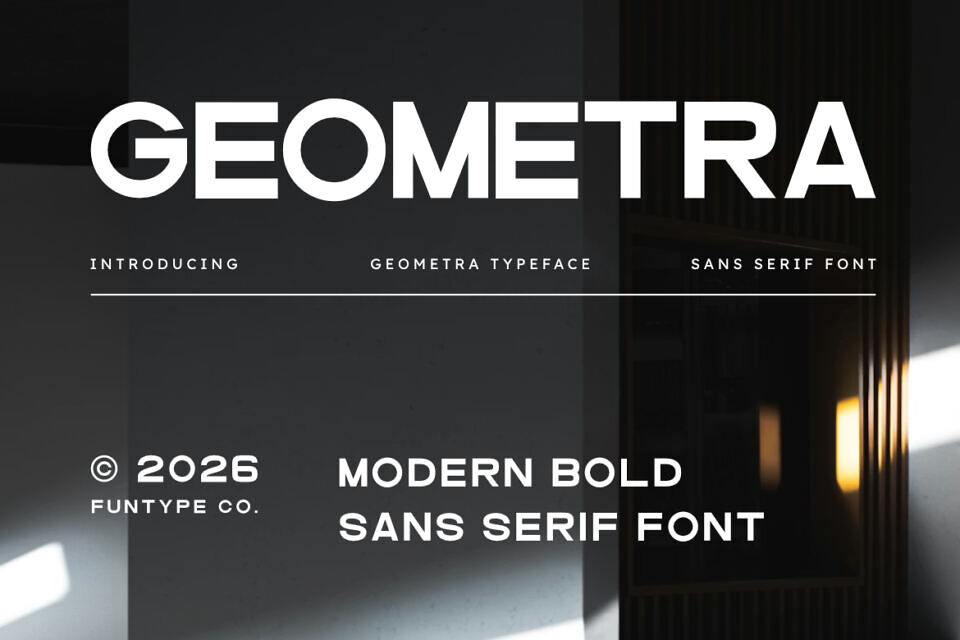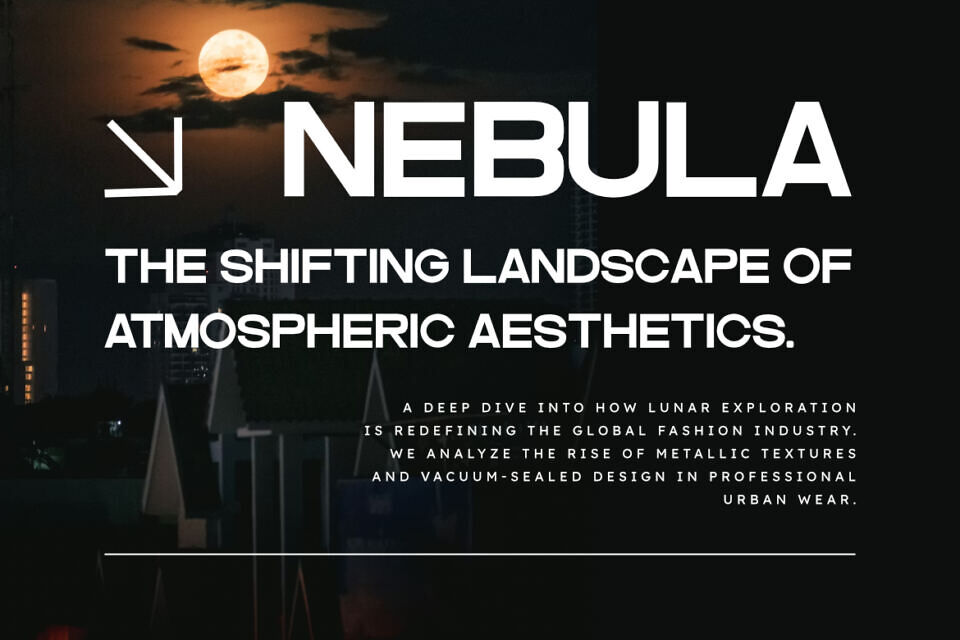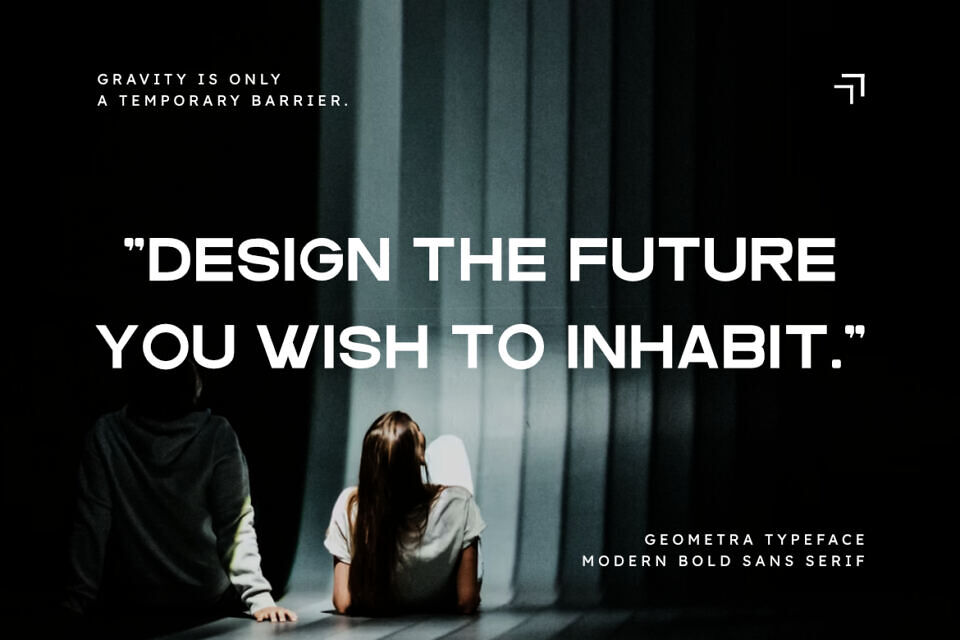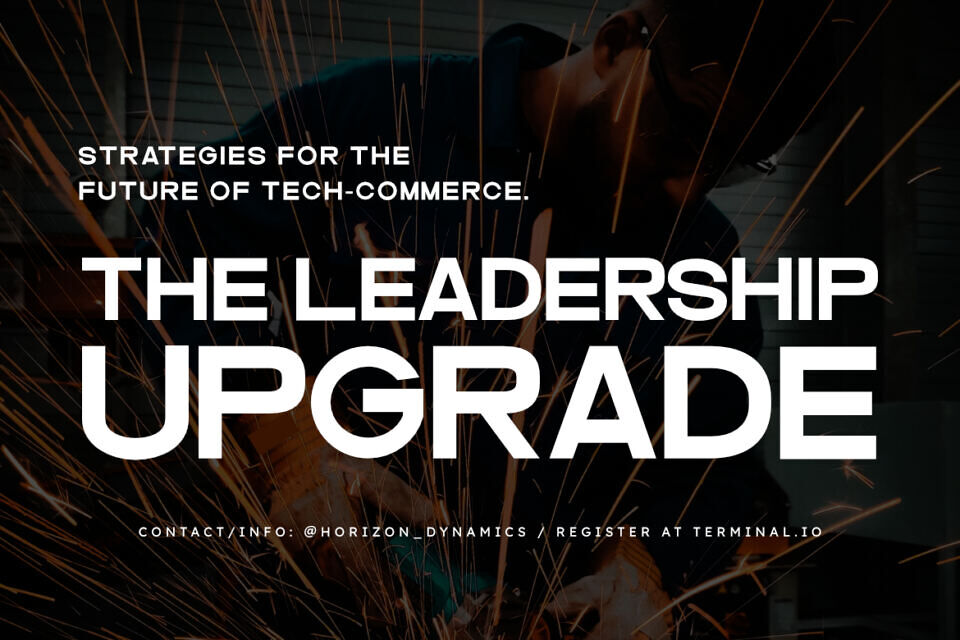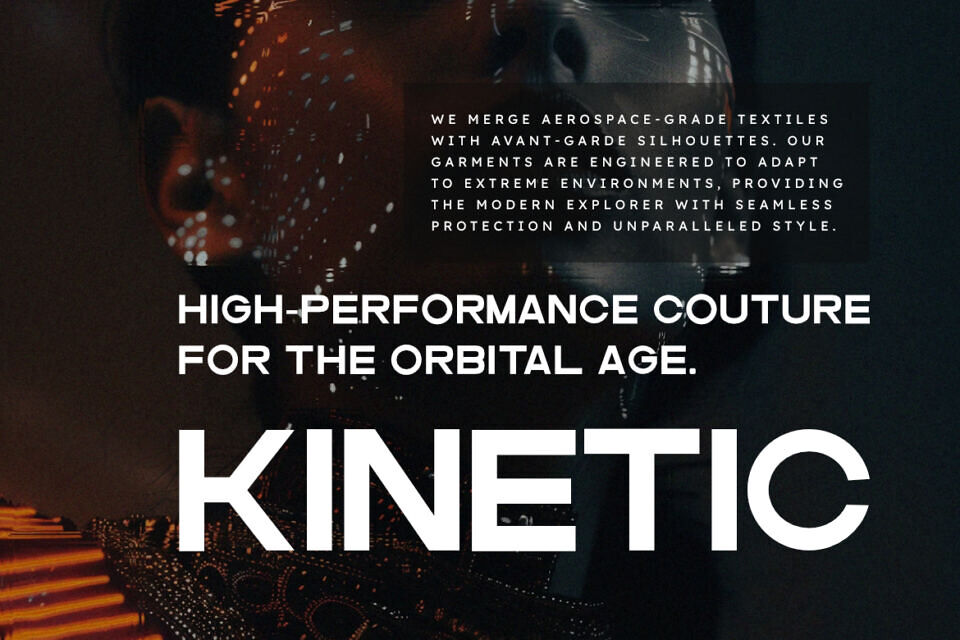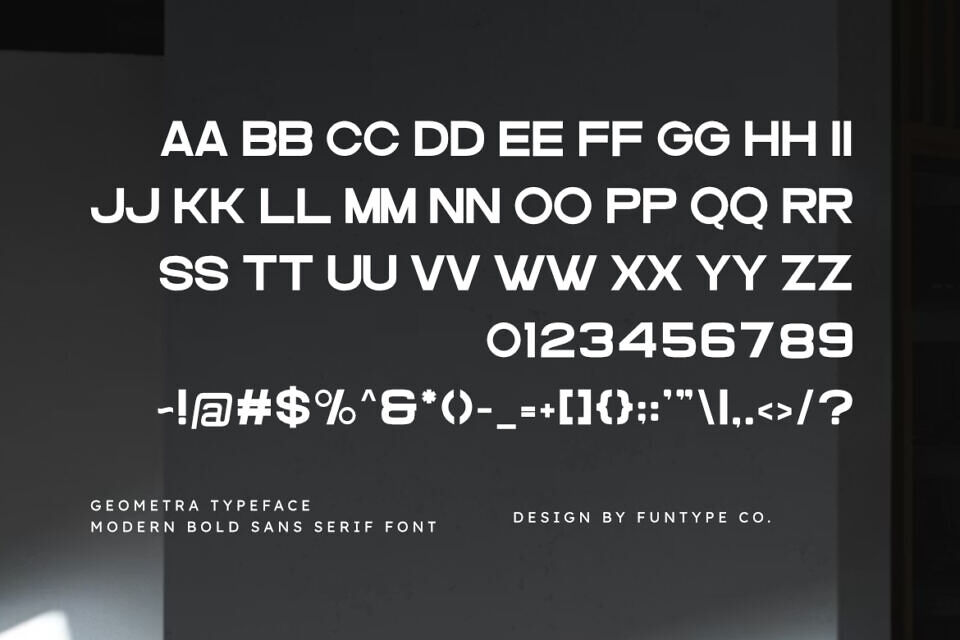
Geometra Font
Geometra is a sophisticated and powerful modern bold sans serif font, thoughtfully designed to capture the essence of geometric precision and contemporary storytelling. With its solid structure and balanced clean lines, Geometra offers a professional aesthetic that brings a touch of commanding clarity to any creative project.
Whether you are crafting a striking corporate logo, a sleek technology brand identity, or bold editorial layouts, Geometra provides a seamless blend of modern flair and timeless authority.